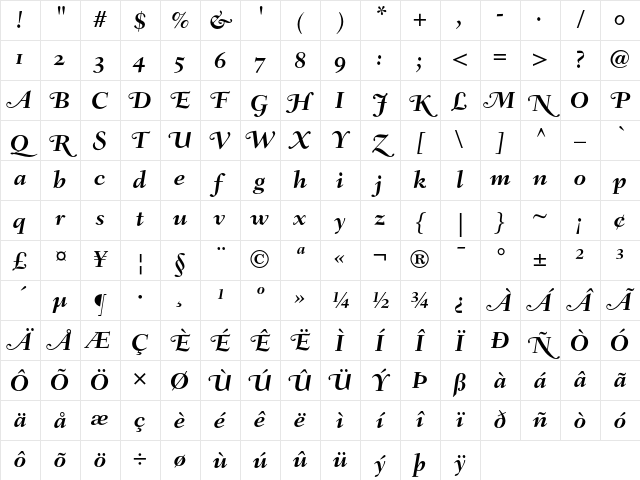
Fairfield LH 76 Swash Bold Italic Old Style Figures
Style: 76 Swash Bold Italic Old Style Figures
Design Context for Fairfield LH
Fairfield LH flows with the natural rhythm of handwritten lettering, making it ideal for designs that call for warmth and personal expression. Its bold stroke weight gives it real presence on the page.
Font Pairing: Combine Fairfield LH with a simple geometric sans for maximum contrast - the tension between flowing curves and clean structure is a classic typographic pairing.
Pro Tip: Use Fairfield LH for short runs of text - names, titles, or taglines. Extended body copy in script faces tires the eye quickly.